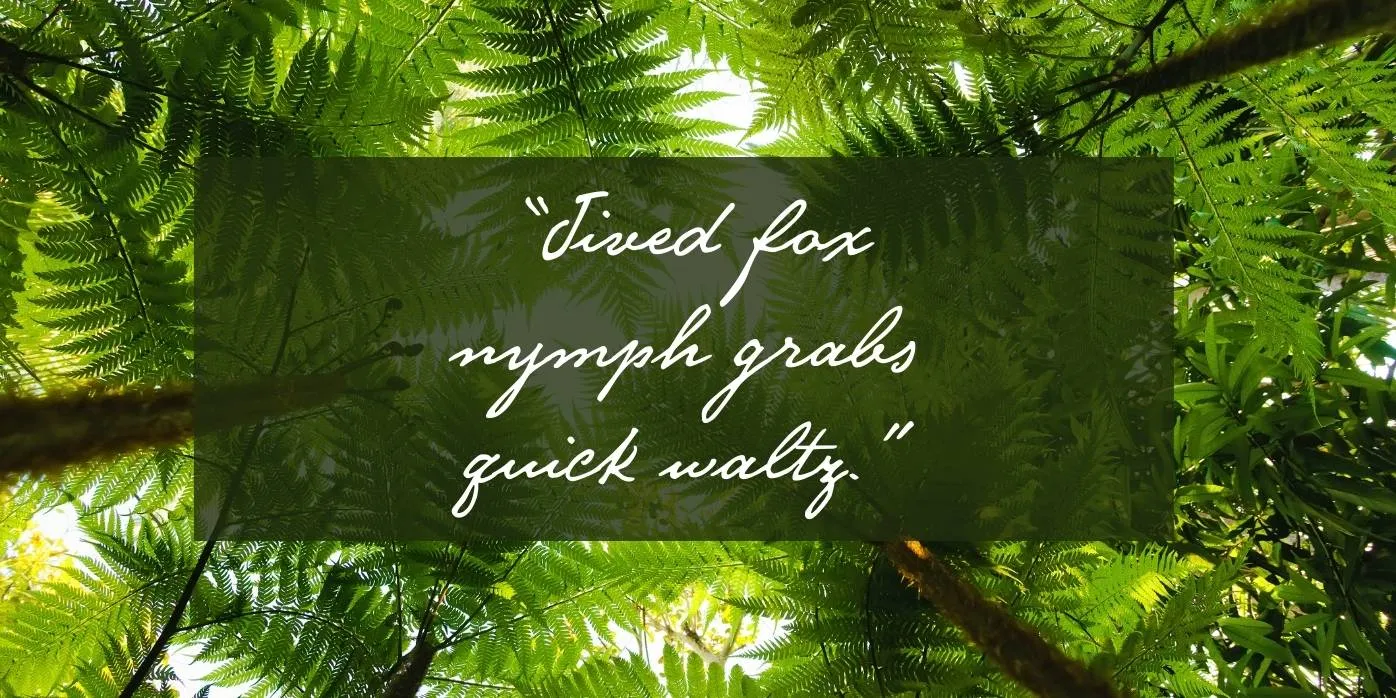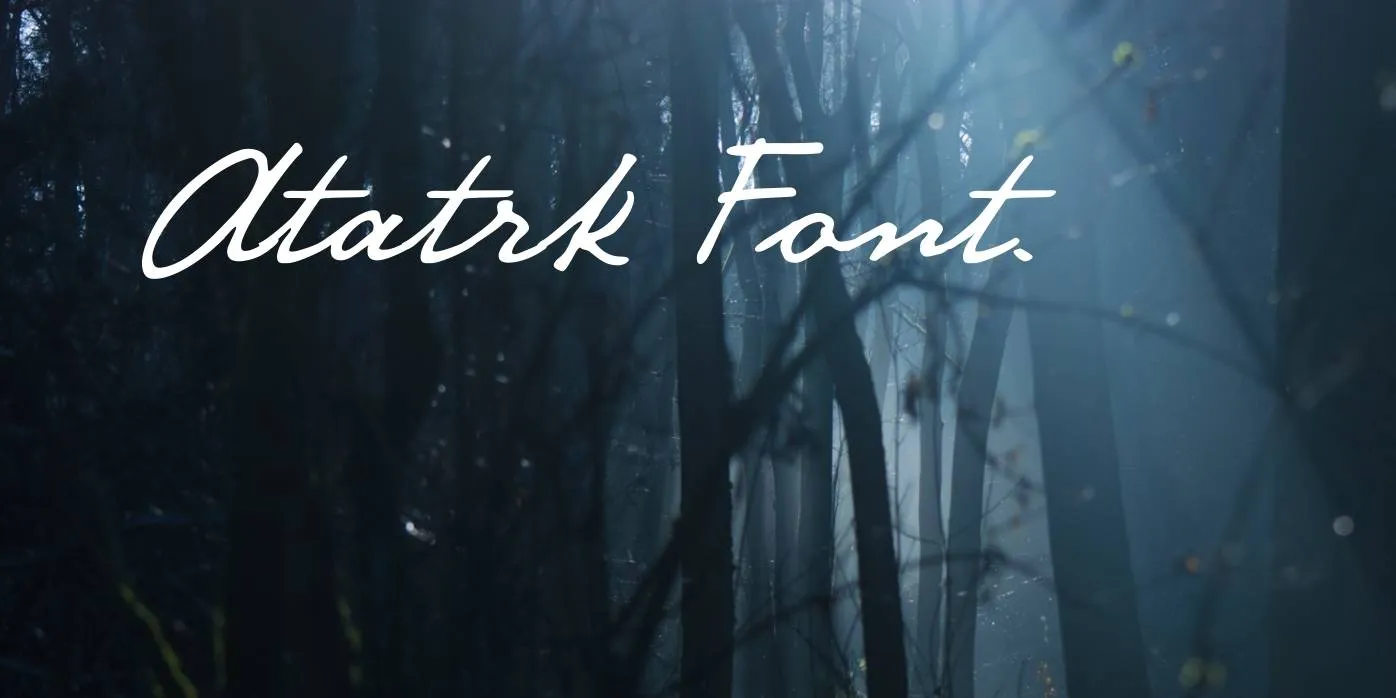
Atatrk Font
Atatrk Font was designed by Steve Contreras. This classy typeface belongs to the Handwritten typeface. This awesome font was designed in memory of Mustafa Kemal Ataturk. This classic font brings back the memories and at the same time, it improves your writing style.
This typeface is very famous all over the world. This typeface will make your writing look great at all times. This stylish font comes in uppercase, lowercase, and numbers at the same time. You can use this typeface on any occasion you like.
It is best for Canva. You can also use its alternative font Romantic Font. This font will give your writing a new look of freshness at all times. This mixture of both upper case and lower-case letters is what gives it a classy look at all times.
Its copy and paste Functions are best. This cute typeface has keen and clean features which is the reason for the popularity of the font at all times. This typeface is best for typography for any event at all times. This unique typeface brings a new look to your designs at all times.